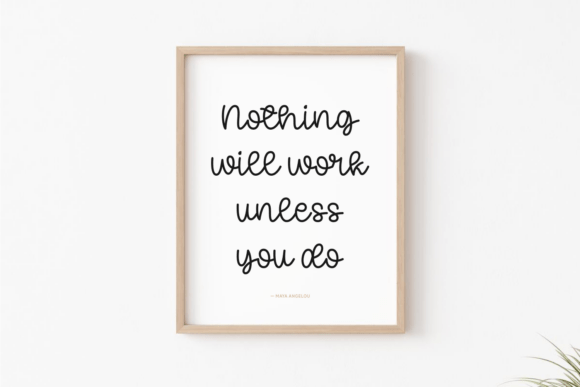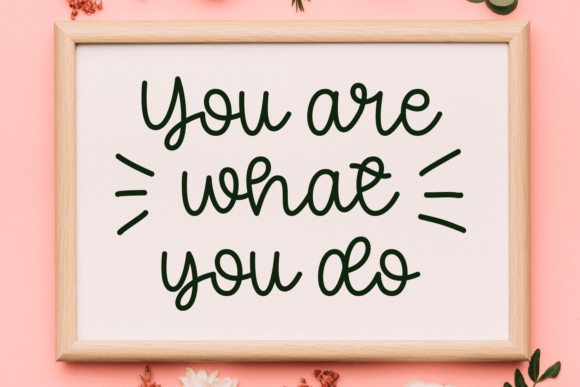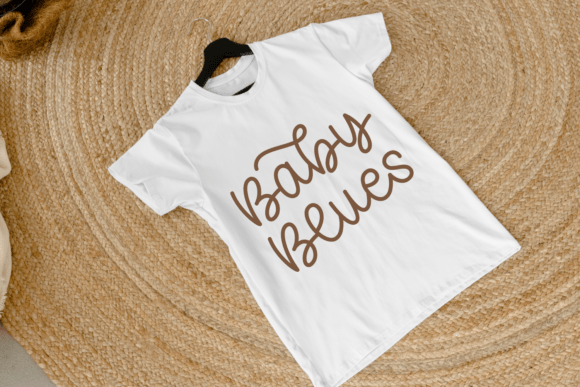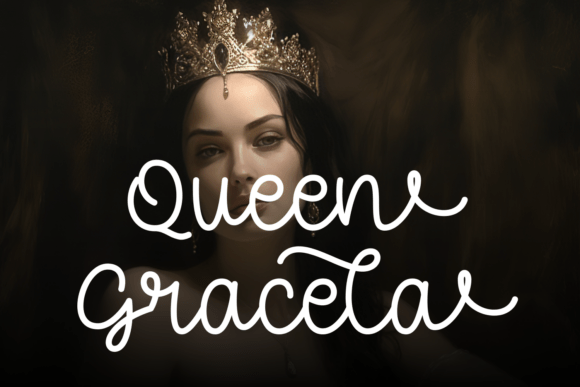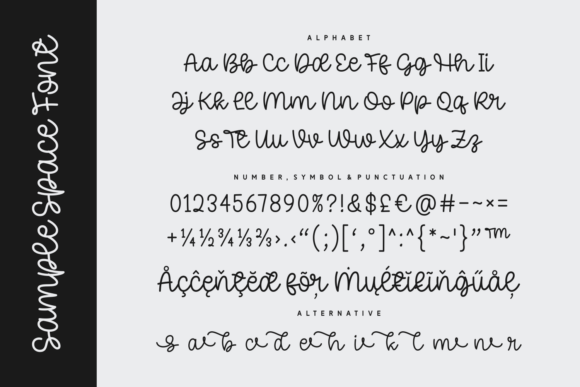
Introduction to Sample Space Font
As designers, we’ve all been there – staring at a blank canvas, trying to bring a creative project to life. Sometimes, it takes just the right font to spark that initial spark of inspiration. For me, it was the discovery of Sample Space Font – a delightful script font that instantly adds a touch of whimsy and charm to any design.
Sample Space Font is a free download that’s perfect for designers looking for a high-quality, versatile font to elevate their creative projects. With its transparent background and smooth flow, this font is ideal for crafting designs that require a handwritten touch. Whether you’re working on a kids’ project, social media post, or branding with personality, Sample Space Font delivers a delightful and modern appeal that’s sure to capture attention.
As a valuable design resource, Sample Space Font is a must-have for designers who want to add a playful twist to their work. Its lighthearted loops and rounded curves make it perfect for designers who want to create engaging and creative content that stands out from the crowd.
Key Features of Sample Space Font
- Unique, modern design suitable for creative projects and personal use, with a transparent background for seamless integration into various digital designs.
- High-quality font with crisp details and clean lines, ensuring it looks great in a variety of sizes and resolutions.
- Perfect for use in logos, headings, and body text, making it a versatile addition to any design project.
Honest Review: Sample Space Font
I recently came across the Sample Space Font and was eager to give it a try for my next creative project. The font is available for free download, which is a definite plus. I’ve found that it’s often the high-quality design resources that make all the difference in a project.
One of the things that stands out about Sample Space Font is its versatility. It works well for both digital and print applications, making it a great choice for a wide range of projects.
- High-quality design: The Sample Space Font is well-designed and feels professional.
- Transparent background: The font’s transparent background makes it easy to layer with other design elements.
- Limited character set: The font only includes a limited number of characters, which may not be ideal for projects that require a wide range of characters.
- No bold or italic styles: The font only comes in a regular style, which may limit its use in certain applications.
Overall, I’m impressed with the Sample Space Font. While it has some limitations, its high-quality design and transparent background make it a great choice for designers looking for a free design resource.
Getting the Most Out of Sample Space Font
For the best results, use Sample Space Font in conjunction with a transparent background to create a seamless design. Experiment with different font sizes, styles, and colors to find the perfect combination for your creative project.
Sample Space Font is ideal for use in logos, branding materials, and marketing campaigns. Its high-quality features make it a valuable design resource for any creative project. Use it to create eye-catching headlines, titles, and body text.